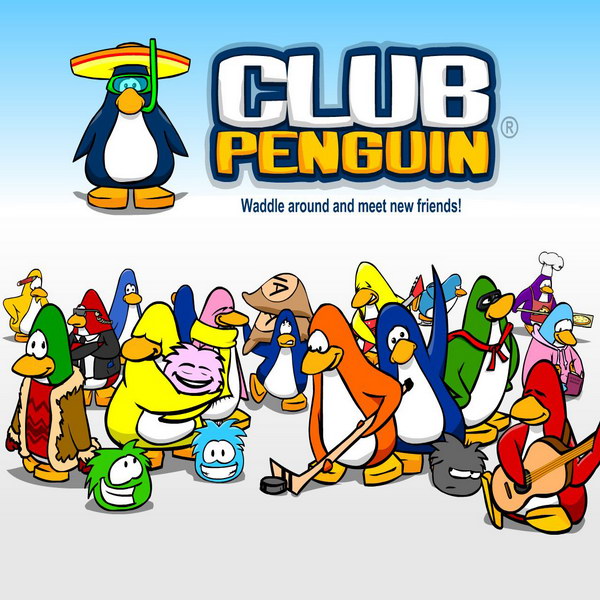
Club Penguin Font
Fonts in UseClub Penguin was a massively multiplayer online game (MMO) developed by New Horizon Interactive/Disney Canada Inc. where players created penguin avatars and explored a virtual world filled with games, activities, and socializing.
The font utilized for the Club Penguin logo resembles Bumbastika, which was created by PizzaDude. This font is exclusively available in uppercase letters and can be downloaded for free from the Fonts Used Section.